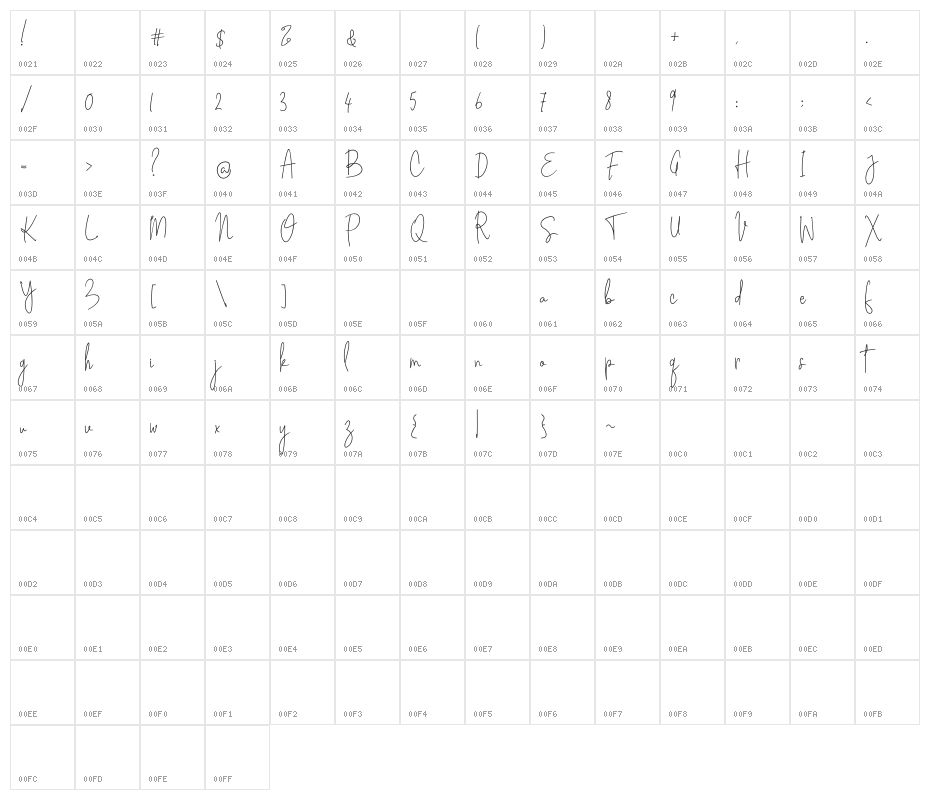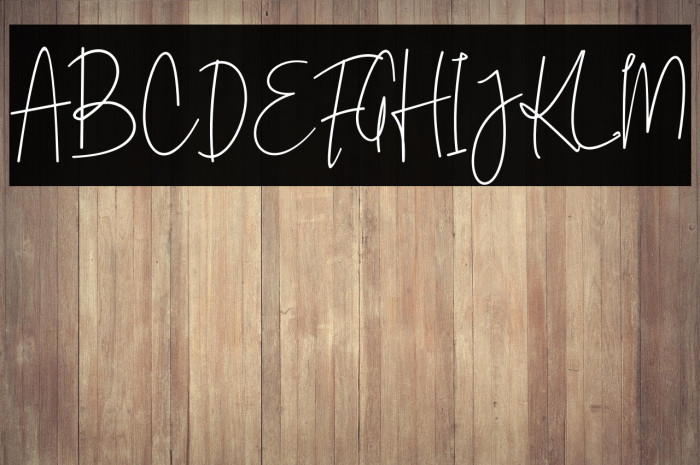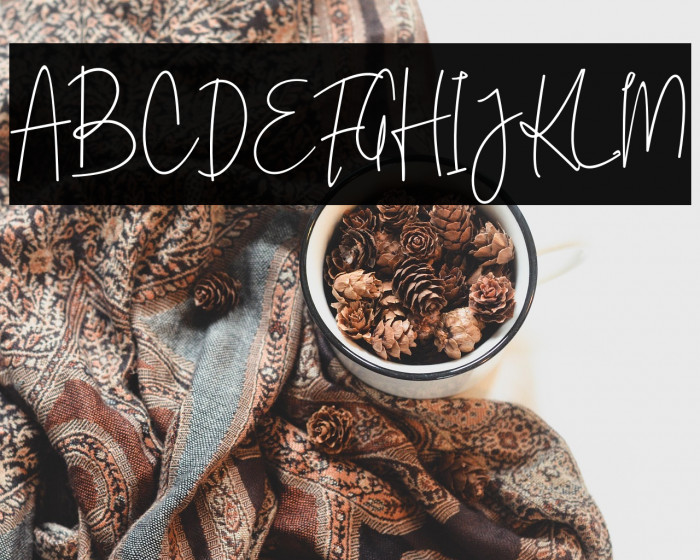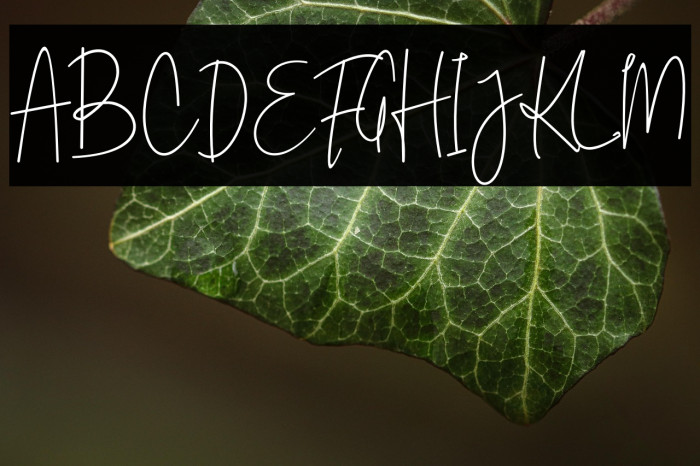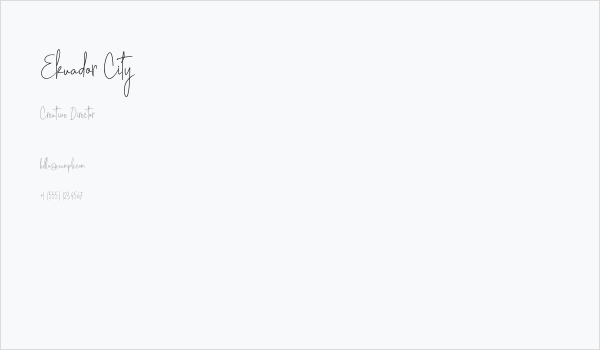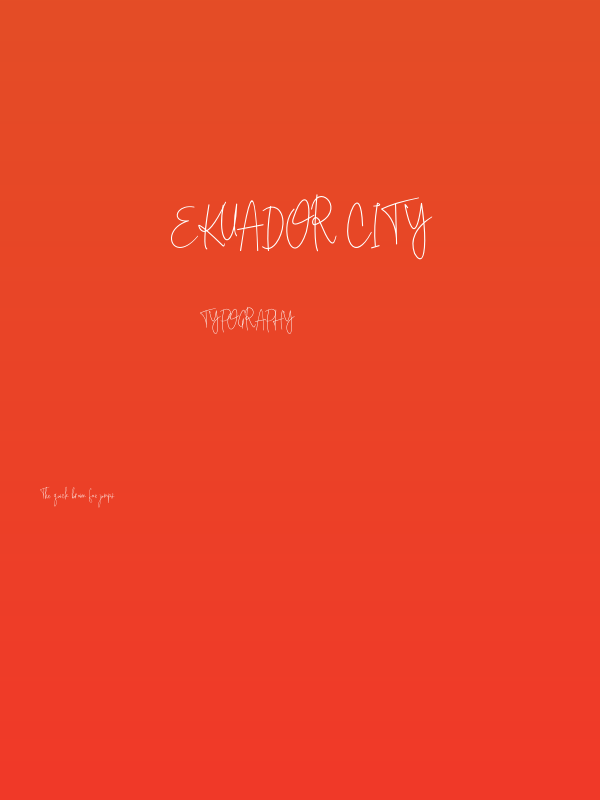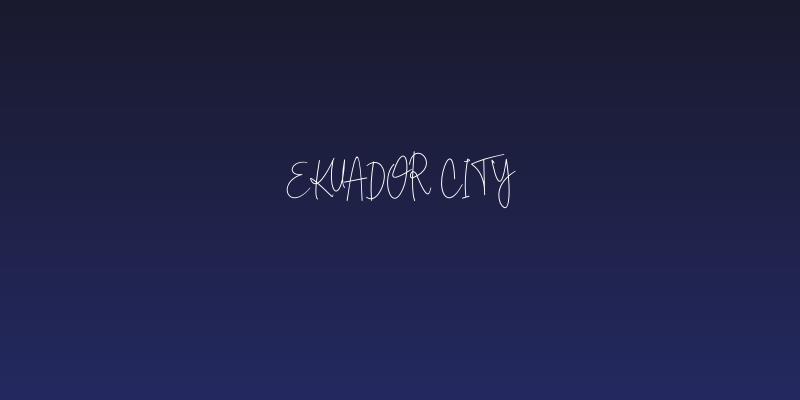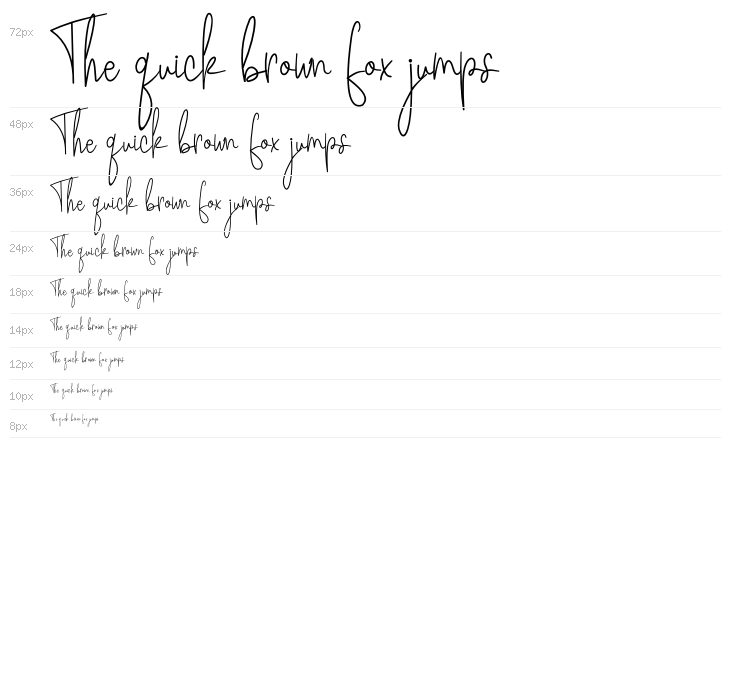
Ekuador City Font
Ekuador City Description
This font features a handwritten, cursive style with a playful and casual appearance. The letters are elongated and slightly slanted, giving it a dynamic and fluid look. The strokes are thin and consistent, with a slight variation that adds to its organic feel. The uppercase and lowercase letters maintain a cohesive style, with the uppercase being more prominent and the lowercase offering a more delicate touch. Numbers and special characters are included, maintaining the same whimsical and free-flowing design. This font is ideal for projects that require a personal and informal touch.